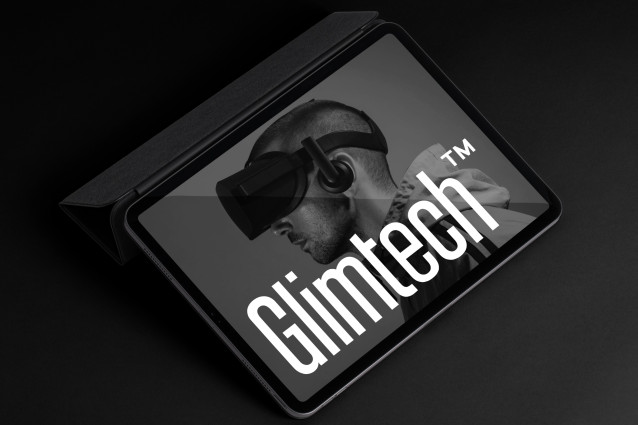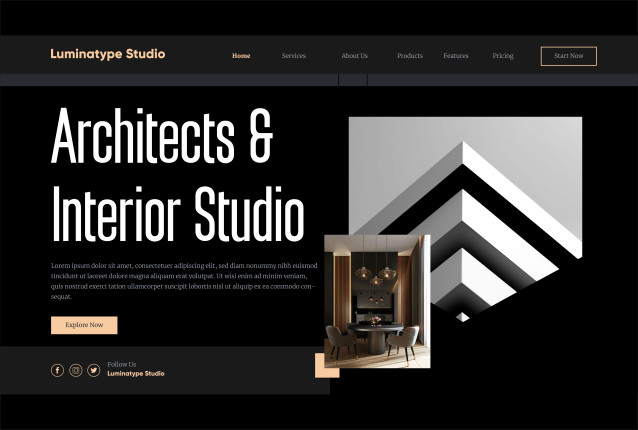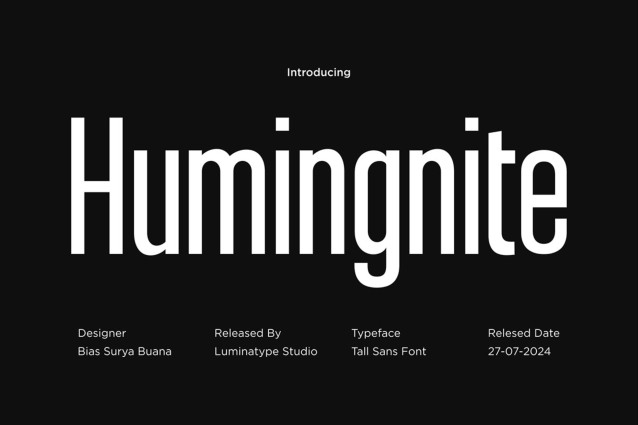
Humingnite Font
Humingnite Font is a bold condensed sans serif with tight spacing, high energy, and unique character shapes. Whether you’re designing headlines, editorial spreads, posters, or branding projects, this complete family gives you more tools to create impact and rhythm — from whisper-thin moments to loud, commanding statements.